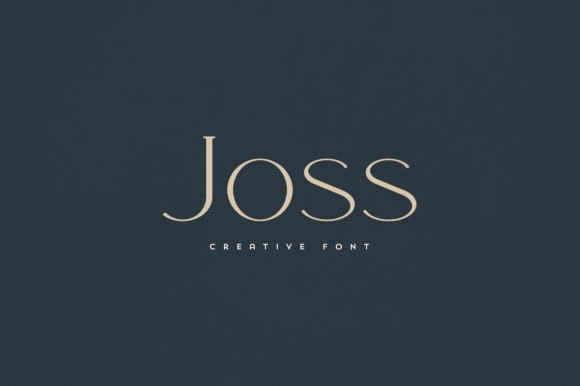
Joss Font
Introducing Joss Font, the typographic masterpiece that will elevate your designs to new heights!
Step into a world of elegance and versatility, where every letter dances with sophistication, ready to transform your creations into captivating works of art. Joss Font, a breathtaking serif typeface, is the key to unlocking your design potential.
With Joss Font, your logos will radiate an aura of timeless charm, your branding will exude a touch of class, and your headlines will command attention with their undeniable presence. Even the simplest text will shimmer with a subtle yet captivating allure, leaving an unforgettable impression.
Imagine your branding projects adorned with the grace of Joss Font, their every element whispering a tale of refined taste and sophistication. Picture your home-ware designs imbued with a timeless elegance, each curve and line a testament to the font's versatility. Let your product packaging speak volumes with the charm of Joss Font, inviting customers to indulge in your offerings.
Envision your magazine headers adorned with the captivating presence of Joss Font, their every word an invitation to delve into the world of captivating stories. Unleash your creativity and use Joss Font as a stylish text overlay, transforming any background image into a captivating visual symphony.
But Joss Font is more than just a collection of letters; it's an investment in your creative vision. Its versatility knows no bounds, empowering you to craft designs that resonate with your audience and leave a lasting impact. Whether you're a seasoned designer or just starting your creative journey, Joss Font is the perfect companion to guide you towards typographic excellence.
Don't let your designs fade into the background. Elevate them to new heights with the timeless beauty of Joss Font. Experience the power of typography and watch your creations blossom into masterpieces of design.